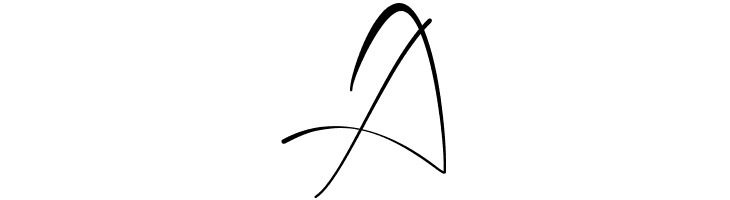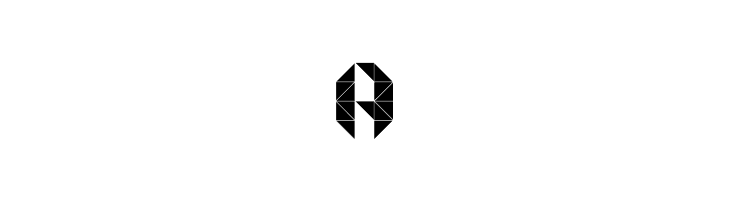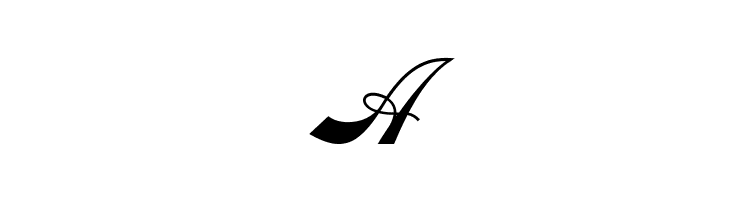
A bold, italicized font with strong, dynamic strokes and a modern feel.
A bold, flowing script font with connected characters and a playful elegance.
A bold, elegant script font with a flowing, connected style.
A modern, angular font with a geometric and dynamic style.
A playful, elegant script font with a handwritten style.
An elegant, cursive font with flowing, ornate letters and graceful flourishes.
An elegant script font with flowing lines and decorative swirls.
A bold, decorative font with a shadow effect and intricate details.
A lively and flowing script font with elegant, playful characteristics.
A dynamic and playful script font with a handwritten style.
A dynamic and elegant script font with fluid, connected letterforms.
A bold, textured font with a handcrafted, artistic style.
A bold, decorative serif font with high contrast and vintage-modern appeal.
A bold, decorative font with high contrast and playful elements.
An elegant and flowing script font with graceful curves and sophisticated flair.
An elegant outline script font with flowing, interconnected characters.
An elegant script font with flowing, cursive letterforms and decorative flourishes.
A steampunk-inspired font with intricate mechanical details and a bold, industrial style.
A playful, handwritten font with smooth, rounded edges and a casual style.
An artistic, hand-drawn font with whimsical curves and decorative elements.
A bold, playful handwritten font with rounded, irregular letterforms.
An elegant script font with intricate swashes and a classic calligraphic style.
A thorny, aggressive decorative font with sharp, jagged edges.
Minimalist, hand-drawn line art of diverse faces.
A whimsical font featuring expressive cartoon faces with exaggerated features.
A bold, geometric font with sharp angles and a faceted design.
A geometric, angular font with a futuristic, digital appearance.
A bold, geometric font with a three-dimensional, faceted design.
A bold, three-dimensional geometric font with a striking visual impact.
A bold, distressed font with a brush-like texture and chaotic aesthetic.